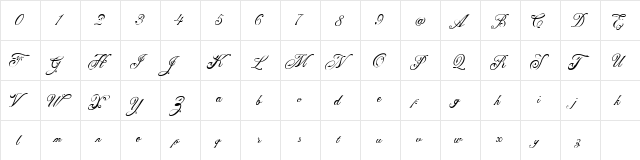
NS Champtone Script Font Preview
NS Champtone Script NS Champtone Script
NS Champtone Script Font Details
| Style | NS Champtone Script |
| Foundry | Novi Souldado |
| Designer | Novi Ananda |
Design Context for NS Champtone Script Typeface
NS Champtone Script brings a calligraphic fluidity to the page — its connecting strokes and expressive curves give it an unmistakably human quality.